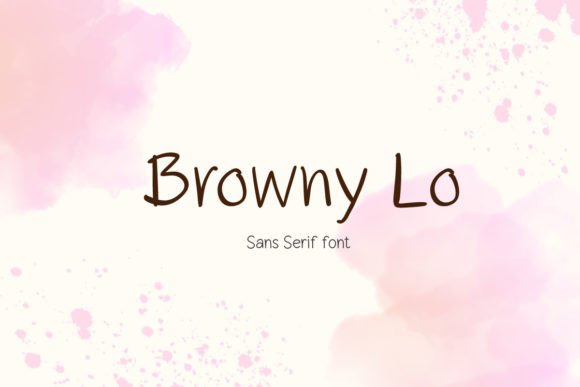
Embark on a Typographic Journey with Browny Lo: Your Perfect Companion for Holiday Letters
Dive into the world of whimsical lettering with Browny Lo, a captivating sans serif font brimming with charm and personality. This enchanting creation by TanoiCartoonist is a symphony of flowing curves and playful strokes, designed to infuse your holiday letters with a touch of magic.
Picture the smiles on your loved ones' faces as they receive heartfelt messages adorned with Browny Lo's unique allure. Its warm and inviting style adds a personal touch that resonates with the spirit of the season.
Whether it's a letter to Santa filled with cherished wishes or a heartfelt greeting card expressing gratitude, Browny Lo transforms ordinary words into heartfelt expressions. Its effortless readability ensures that your messages shine, making them a joy to read and remember.
Unlock a World of Creative Possibilities
With Browny Lo as your artistic partner, your projects take on a new life. Its versatile nature makes it the perfect choice for a myriad of applications, from wedding invitations and thank-you cards to eye-catching social media posts and captivating blog designs.
Imagine your wedding invitations adorned with Browny Lo's elegant script, setting the tone for a day filled with love and laughter. Or envision your social media posts popping with personality, grabbing attention and sparking engagement.
Unleash Your Inner Artist
Browny Lo's playful spirit invites you to unleash your creativity. Its friendly handwritten style lends itself beautifully to diary entries, adding a touch of whimsy to your personal reflections.
Picture your diary pages adorned with Browny Lo's charming strokes, capturing your thoughts and dreams in a font that feels like a warm embrace. Let your imagination soar as you personalize your planner with Browny Lo's unique flair, making it a reflection of your vibrant personality.
Experience the Browny Lo Difference
Browny Lo is more than just a font; it's an experience that captivates the senses and ignites the imagination. Its unique design adds a touch of delight to every project, making it the perfect choice for those who seek to create truly exceptional communications.
Don't settle for ordinary fonts that blend into the background. Embrace the magic of Browny Lo and watch your words come alive with charm and personality.